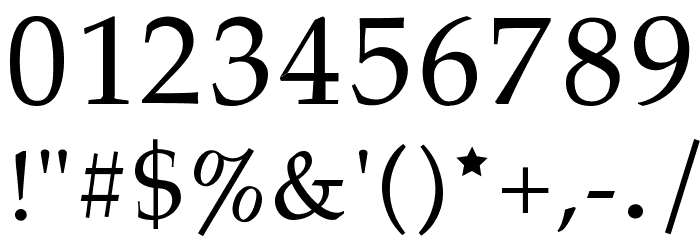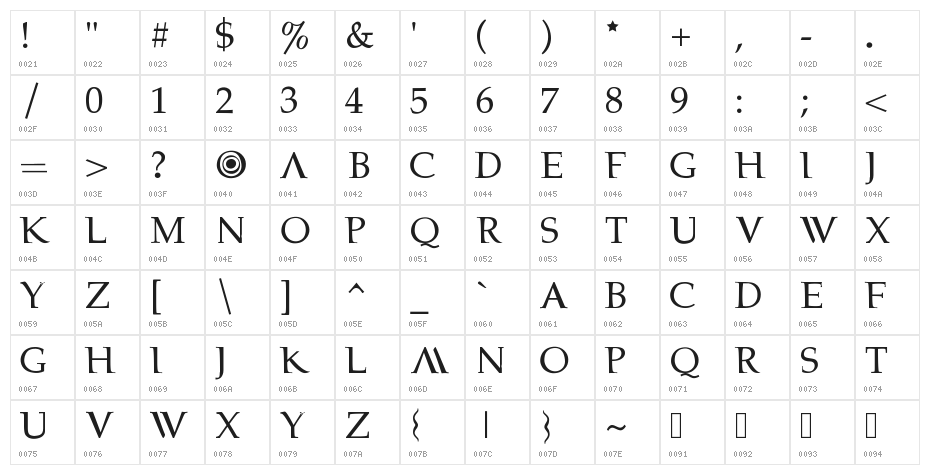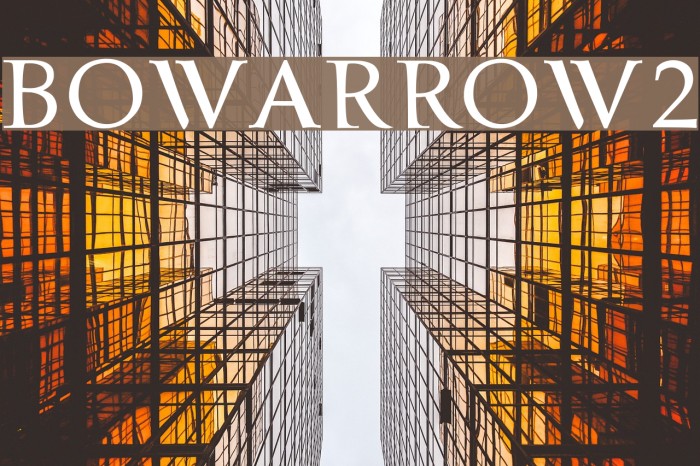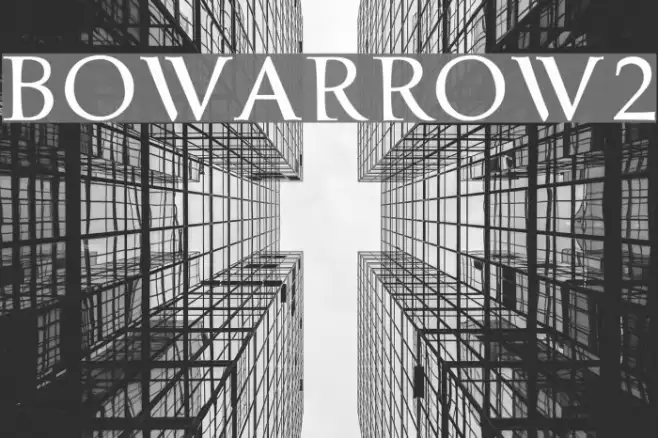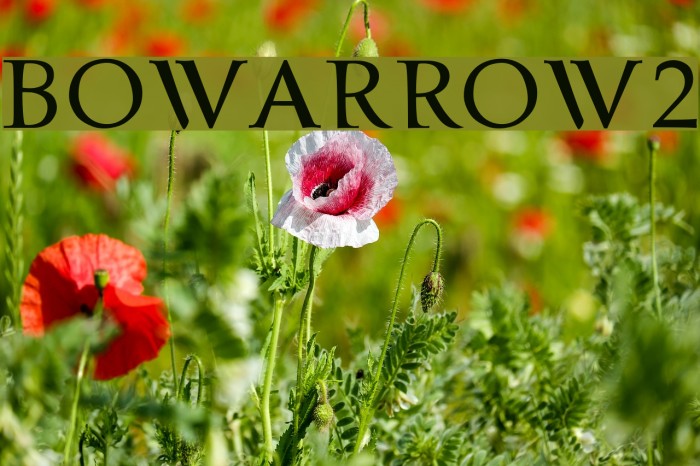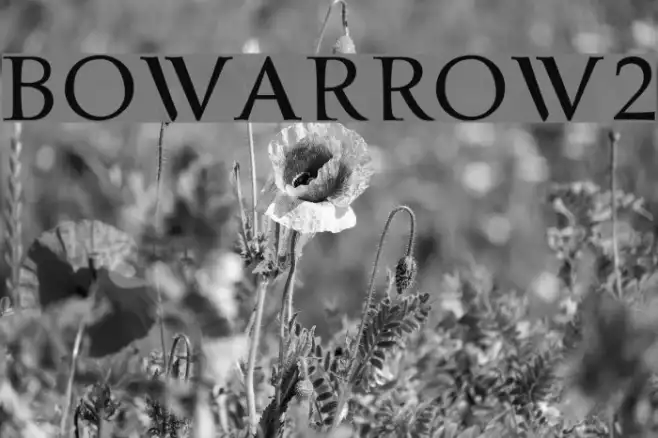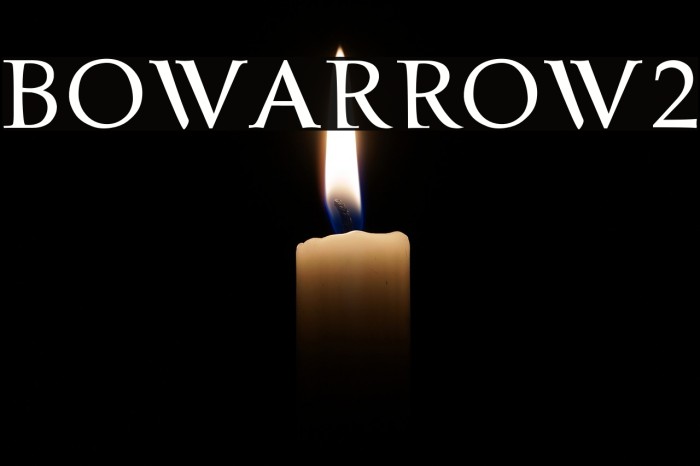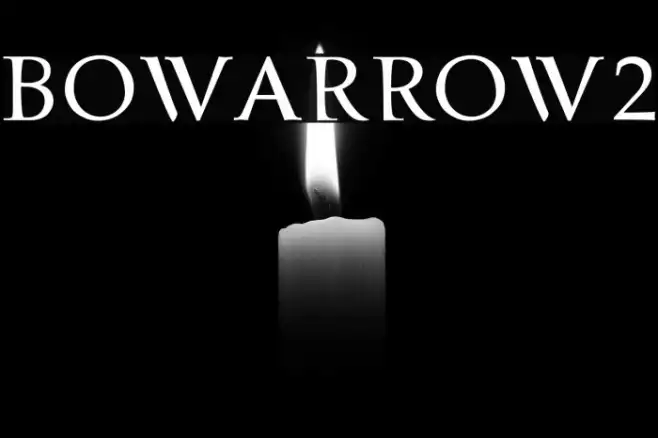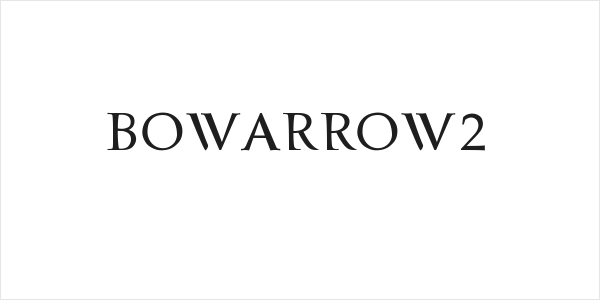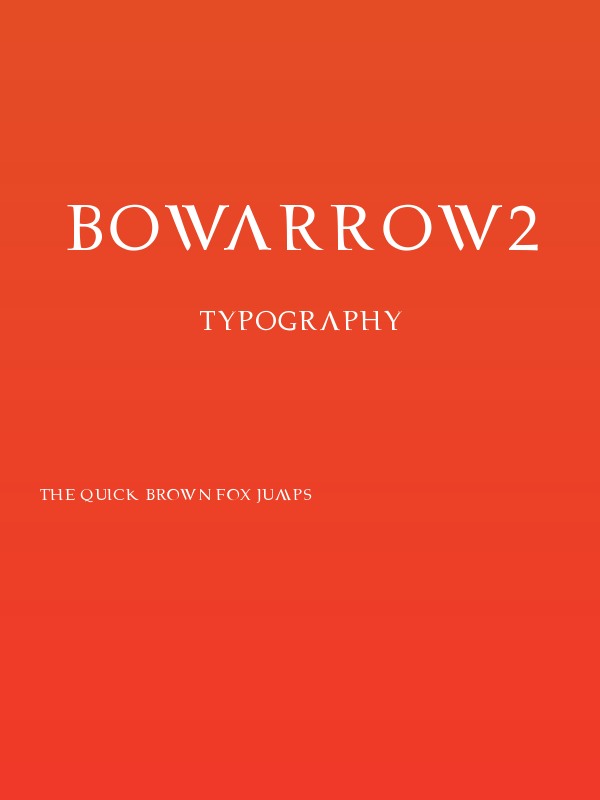
bowarrow2 Font
bowarrow2 Description
This font features a classic serif style with a modern twist, characterized by its sharp, angular serifs and clean lines. The uppercase letters exhibit a strong presence with slightly flared strokes, giving them a distinctive and authoritative appearance. The lowercase letters maintain a consistent style, offering a harmonious balance between elegance and readability. Numerals are designed with a traditional touch, ensuring clarity and legibility. Special characters are crafted with attention to detail, complementing the overall aesthetic. This font's design is versatile, making it suitable for a variety of applications where a touch of sophistication is desired.
| Proposed Projects | Ideal for editorial design, book covers, branding, and formal invitations. |